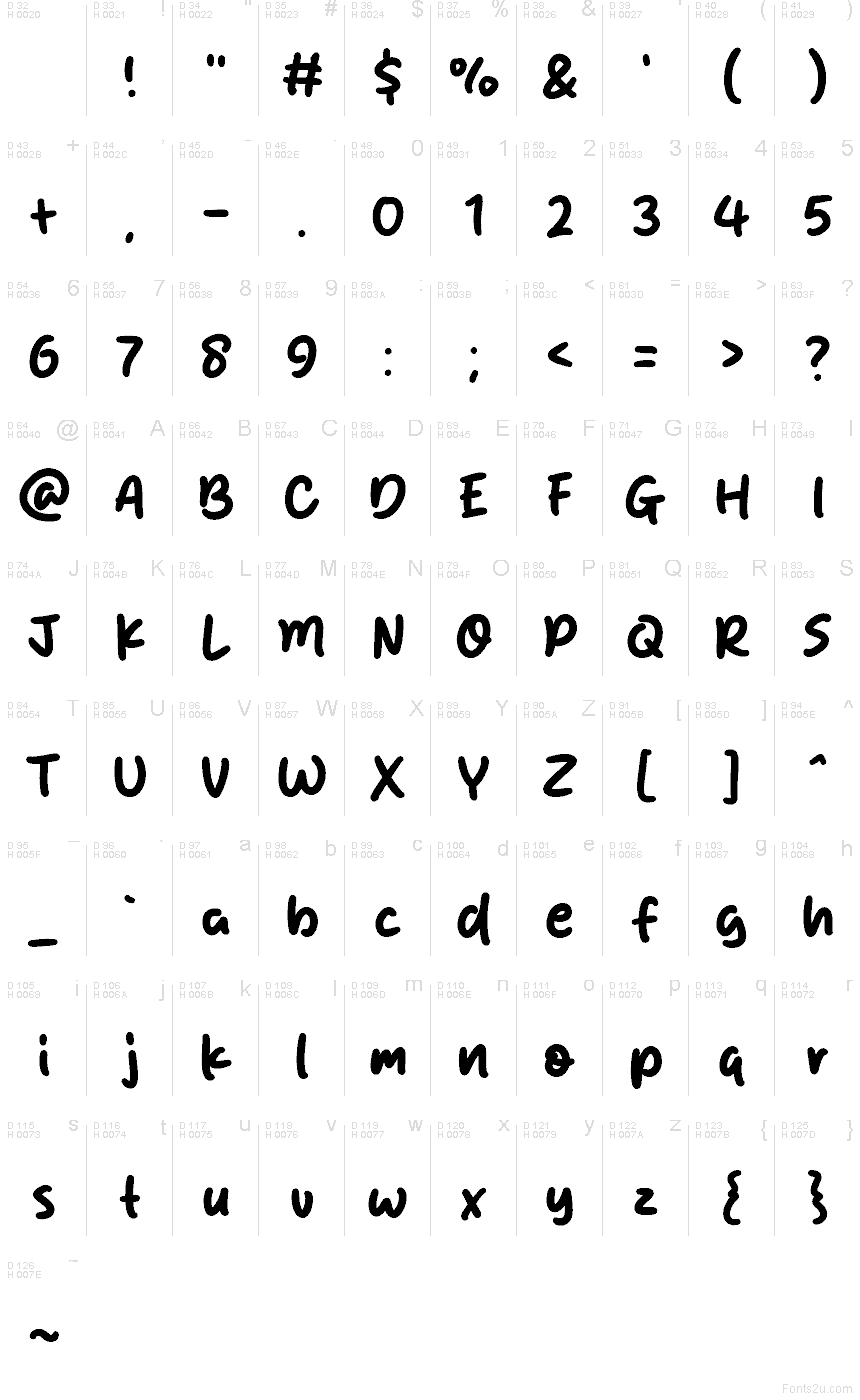
Magic Sunset
Magic Sunset font by MJType is a free handwritten font that captures the feel of quick marker notes without sacrificing clarity. The rounded strokes and even rhythm keep it easy to read, while the slightly bouncy baseline gives each word a warm, human touch. It’s casual and relaxed, but not messy—great when you want handwriting that still looks polished in a layout.
Using Magic Sunset, you can bring a friendly tone to social media graphics, quote posters, children’s book covers, product packaging, greeting cards, and informal branding. This free font shines in larger titles where its soft, inky curves can breathe, then pairs nicely with a simple sans serif for small supporting text.